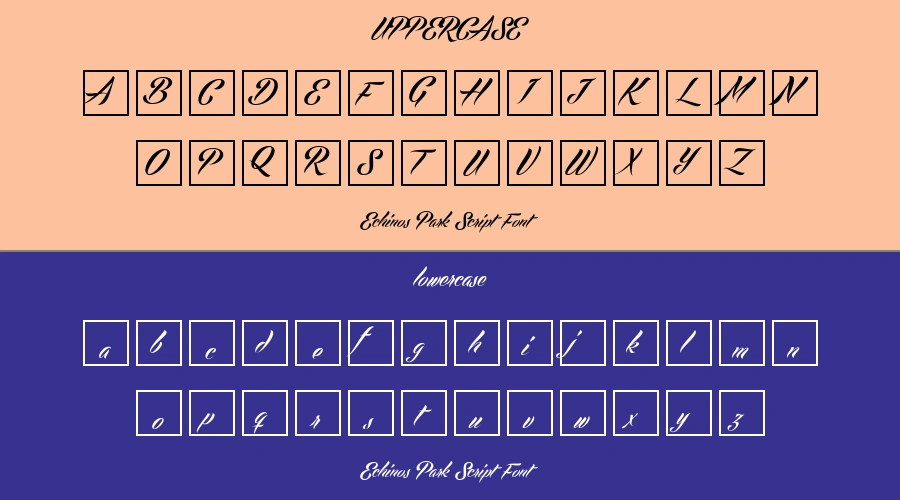
About Echinos Park Script Font
When typographic excellence matters most, Echinos Park Script Font delivers through its thoughtful blend of harmonious shapes and refinement. Specially crafted for literary works, it offers the adaptability and artistic value required for sophisticated design work. Every detail serves a purpose.
The character set showcases thoughtful details like elegant spacing alongside functional expert sets. This proves especially valuable in brochures, where archive stability directly influences results. Particular attention was paid to stroke contrast and contemporary relevance during development.